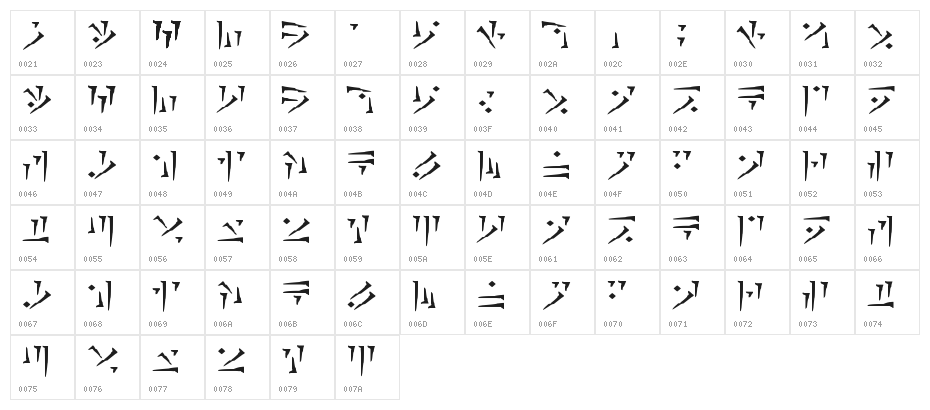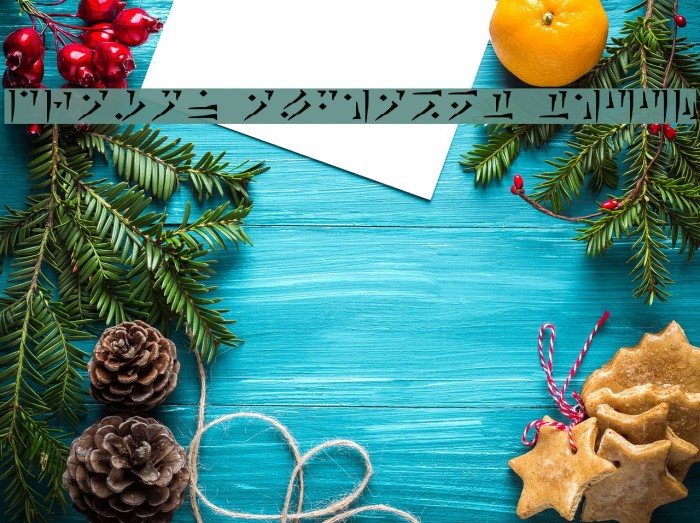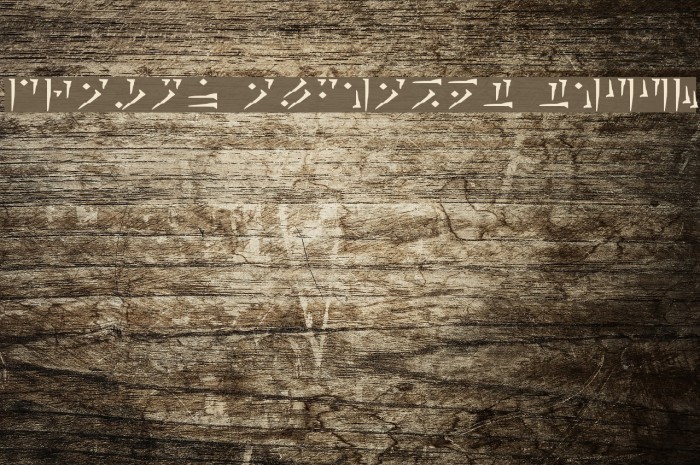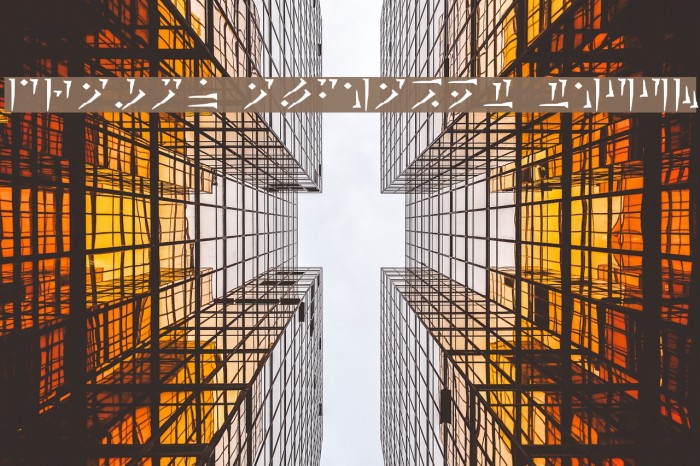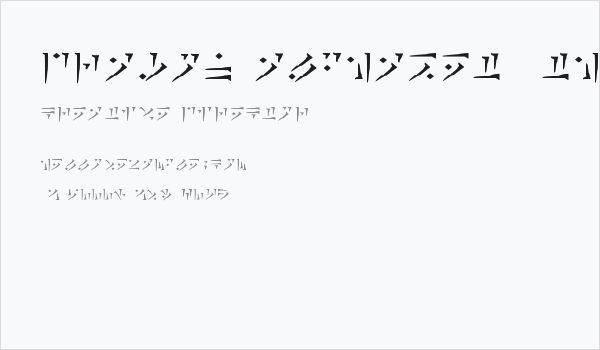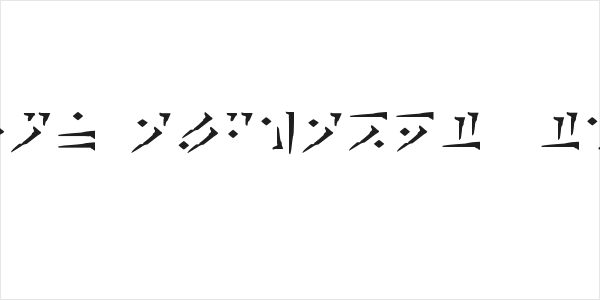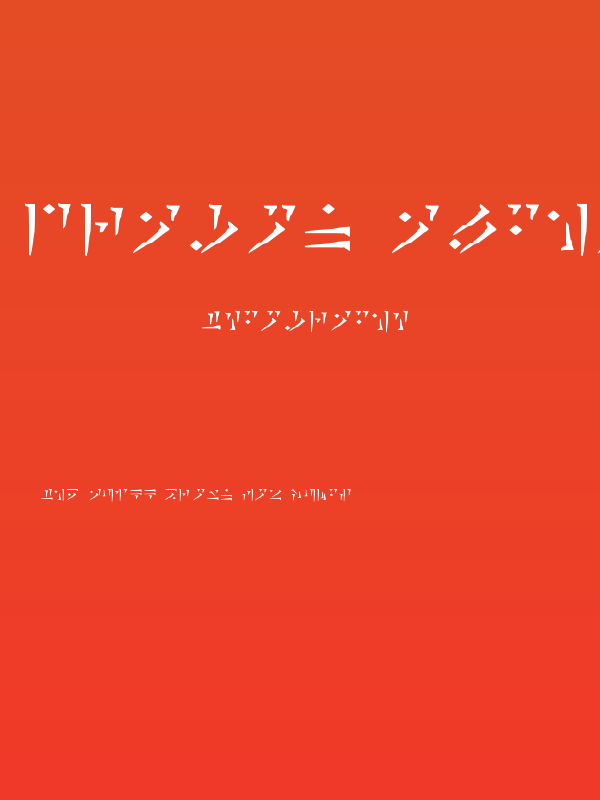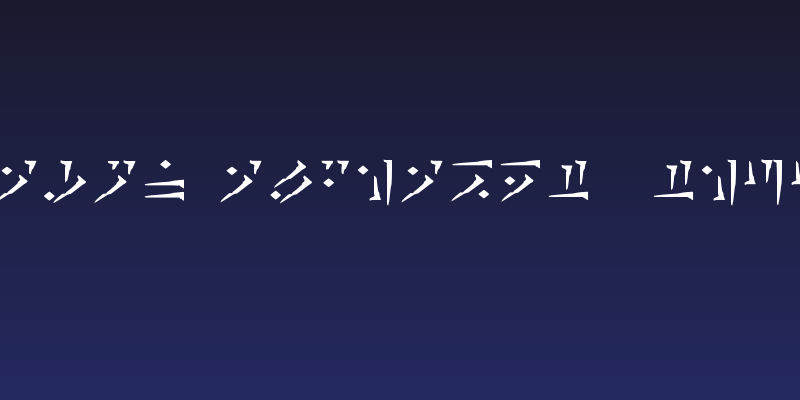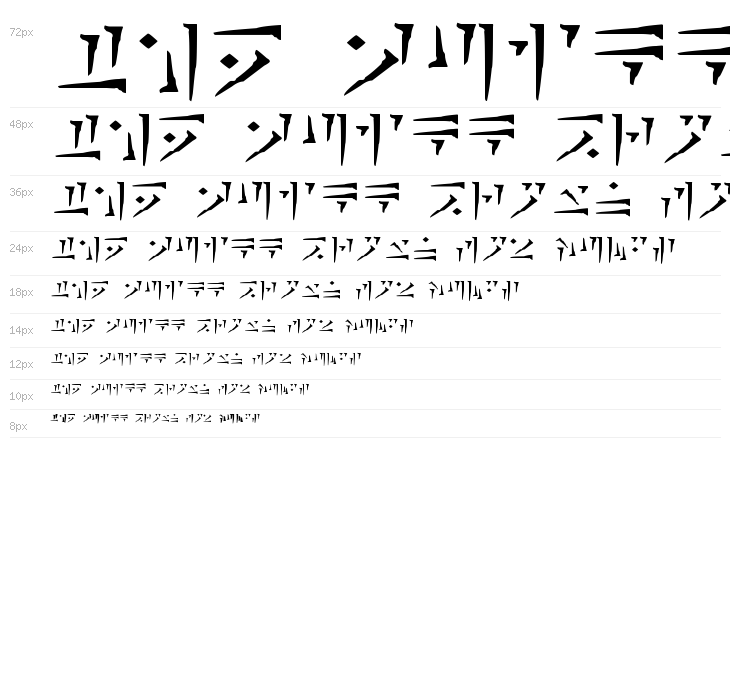
Dragon Alphabet [Thuum] Font
Dragon Alphabet [Thuum] Description
This font features a unique, angular design reminiscent of ancient runes or glyphs, often associated with fantasy or mythical themes. The characters are composed of sharp, jagged lines and edges, giving them a distinct, aggressive appearance. The style evokes a sense of mystery and power, suitable for settings that require an otherworldly or ancient aesthetic. Each character is crafted with precision, maintaining a consistent visual theme throughout the alphabet. The font's design is highly decorative, making it ideal for thematic projects that aim to capture the essence of fantasy worlds.
| Use Case | Logos, Titles, Thematic Designs |
| Proposed Projects | Ideal for fantasy-themed projects, game design, book covers, or any creative work requiring an ancient or mystical aesthetic. |